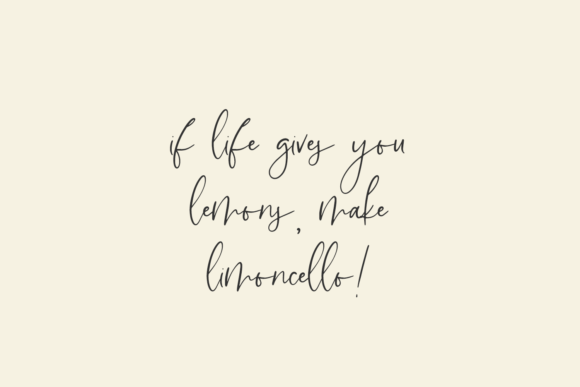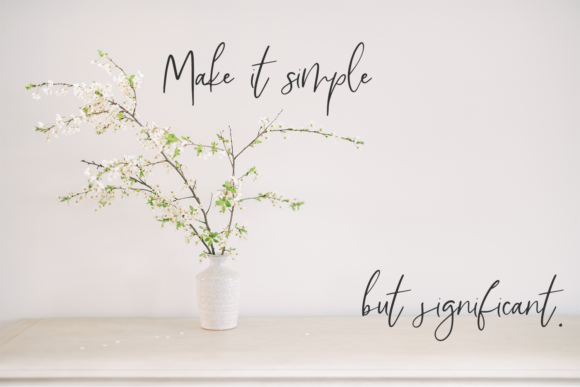
Lemonlove Font
db-ku.com - Script & Handwritten -- Lemonlove is a beautiful light handwritten font with a unique feel and a stunning impact. It will add a luxury spark to any design project that you wish to create! Fall in love with its incredibly versatile style and use it to create spectacular designs!